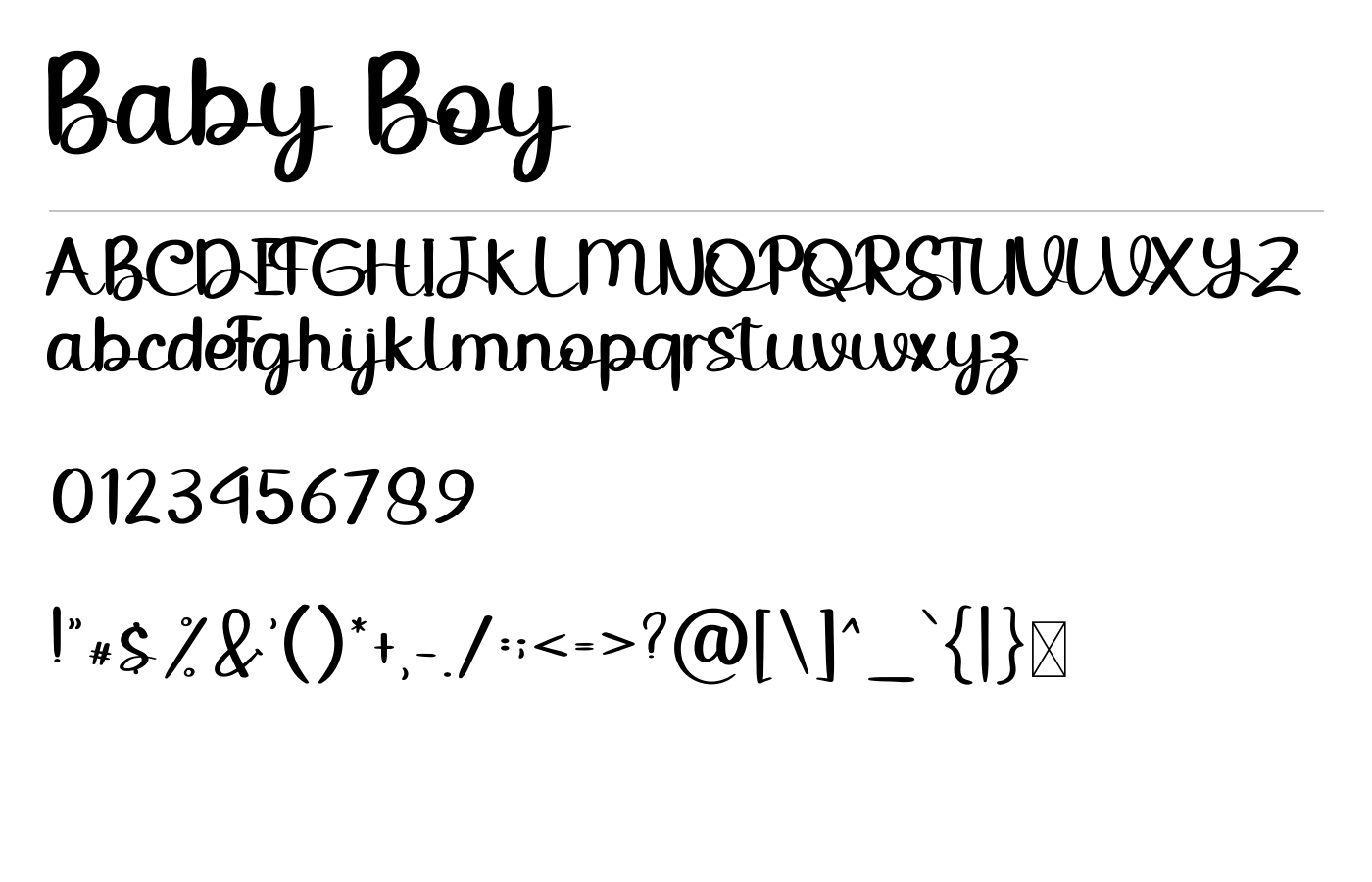
Baby Boy is a playful, handwritten script font with a friendly and casual vibe. Its rounded, soft letterforms and lively, varied strokes make it ideal for designs aimed at a youthful or creative audience. This font suits invitations, children's products, branding, and any context where a warm, approachable feel is desired.
Baby Boy Font
About Baby Boy Font